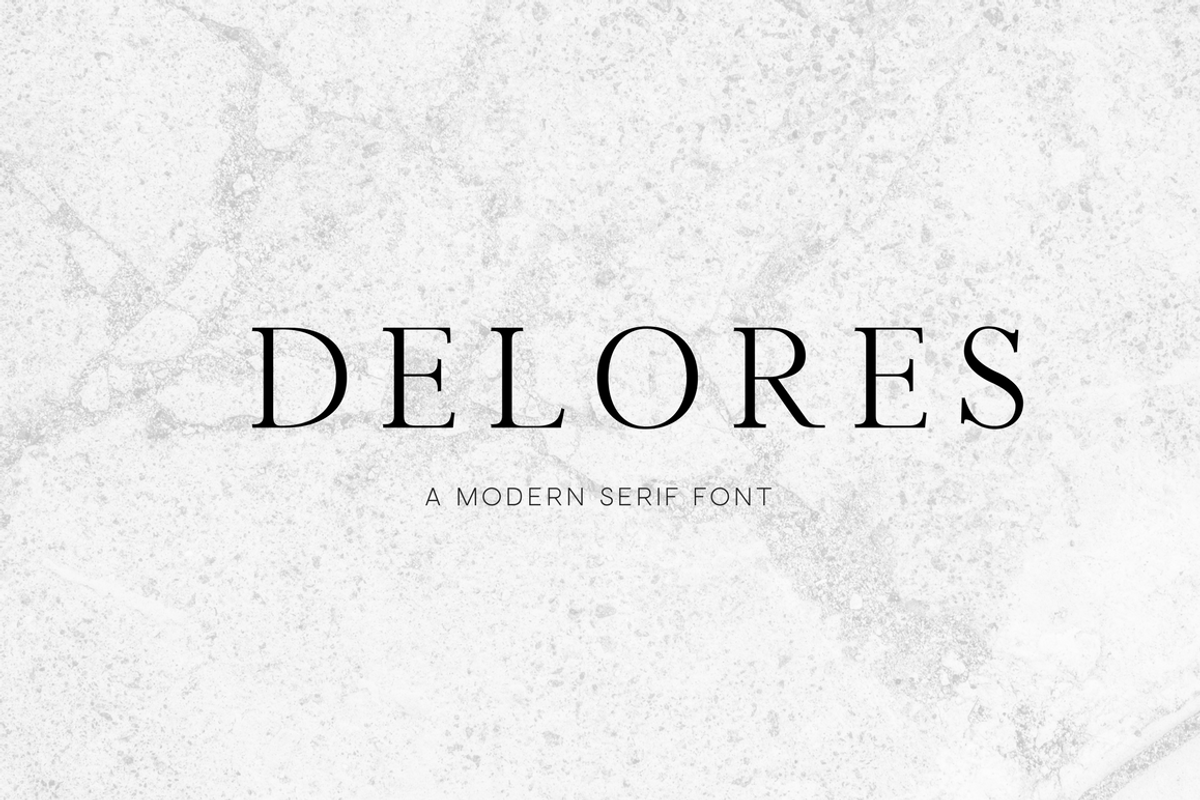
Delores Font Free Download is a modern serif typeface that combines elegance, strength, and a touch of vintage charm. With its high-contrast strokes, sharp serifs, and stylish curves, Delores is perfect for fashion branding, editorial layouts, luxury packaging, wedding invitations, and sophisticated logos.
Designed to stand out in both large and small sizes, Delores includes uppercase and lowercase letters, numerals, punctuation, and elegant ligatures—giving your typography a polished and refined appearance. Its modern twist on classic serif structure makes it a go-to choice for designers seeking timeless beauty with a fresh edge.
Whether you’re creating a high-end brand identity or a stylish magazine spread, Delores Font Free Download offers the grace and versatility your design needs. Use it in personal or mockup projects, and be sure to purchase the appropriate license for any commercial use. Make a bold, elegant impression with this stunning modern serif font.